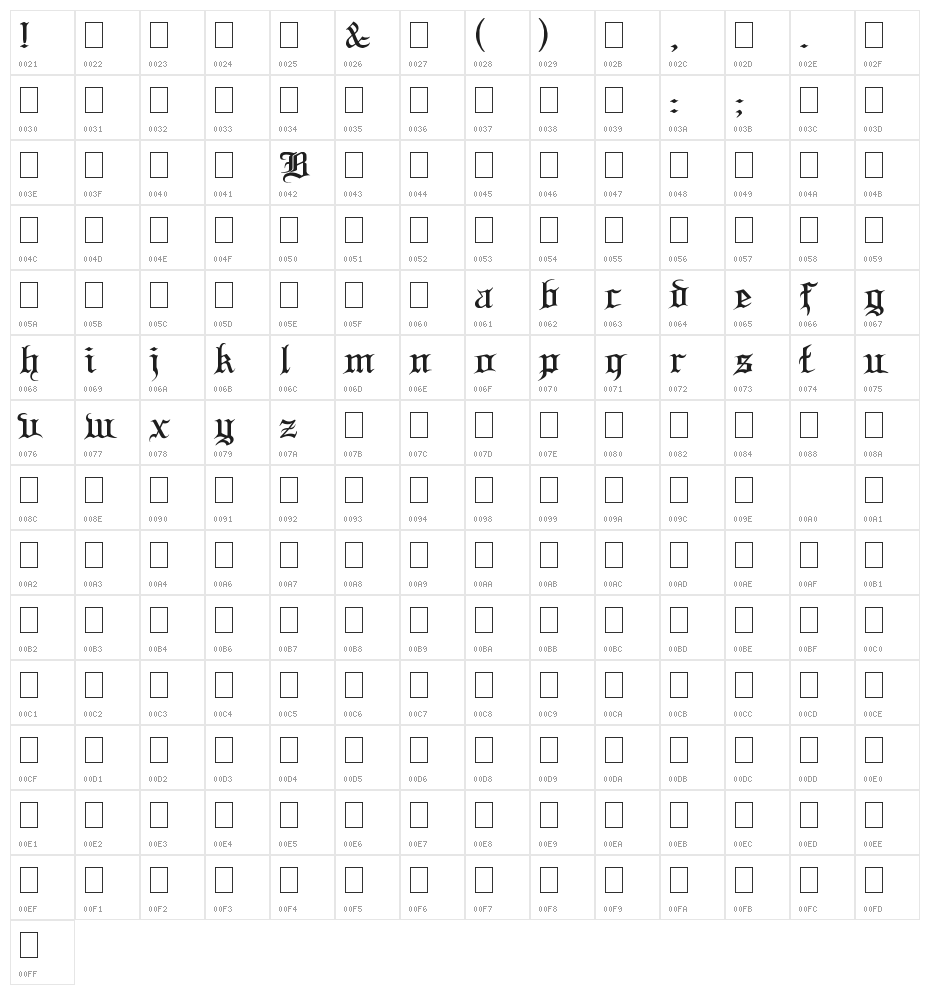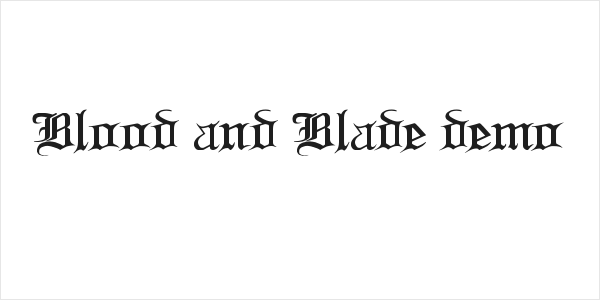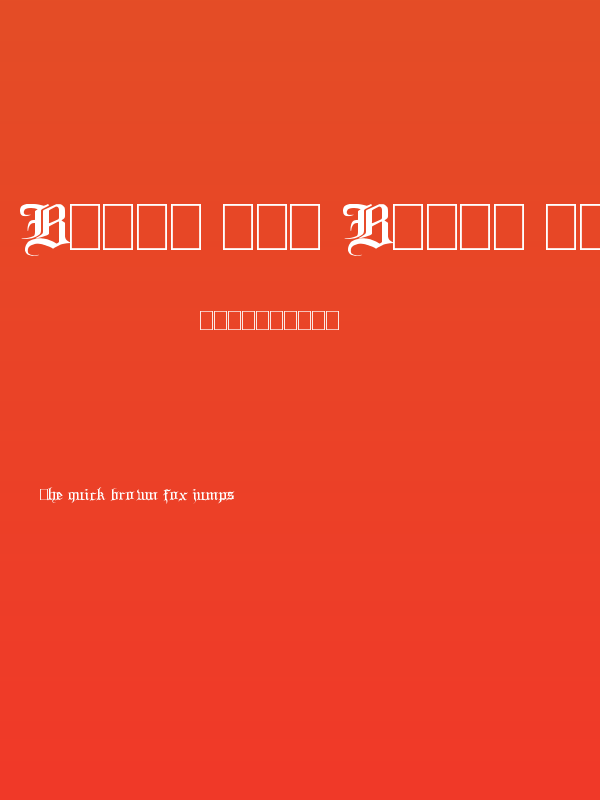
Blood and Blade demo Font
Blood and Blade demo Description
This font exudes a medieval and gothic aesthetic, characterized by its sharp, angular lines and intricate detailing. The lowercase letters are particularly ornate, with dramatic flourishes that evoke a sense of historical elegance. The uppercase letters, though not fully visible, suggest a continuation of this elaborate style. The font's overall appearance is reminiscent of traditional blackletter scripts, often associated with historical documents and old-world charm. Its bold strokes and high contrast between thick and thin lines enhance its dramatic presence, making it ideal for projects that require a touch of antiquity and sophistication.
| Proposed Projects | Ideal for historical-themed designs, book covers, posters, and branding that requires a vintage or gothic touch. |